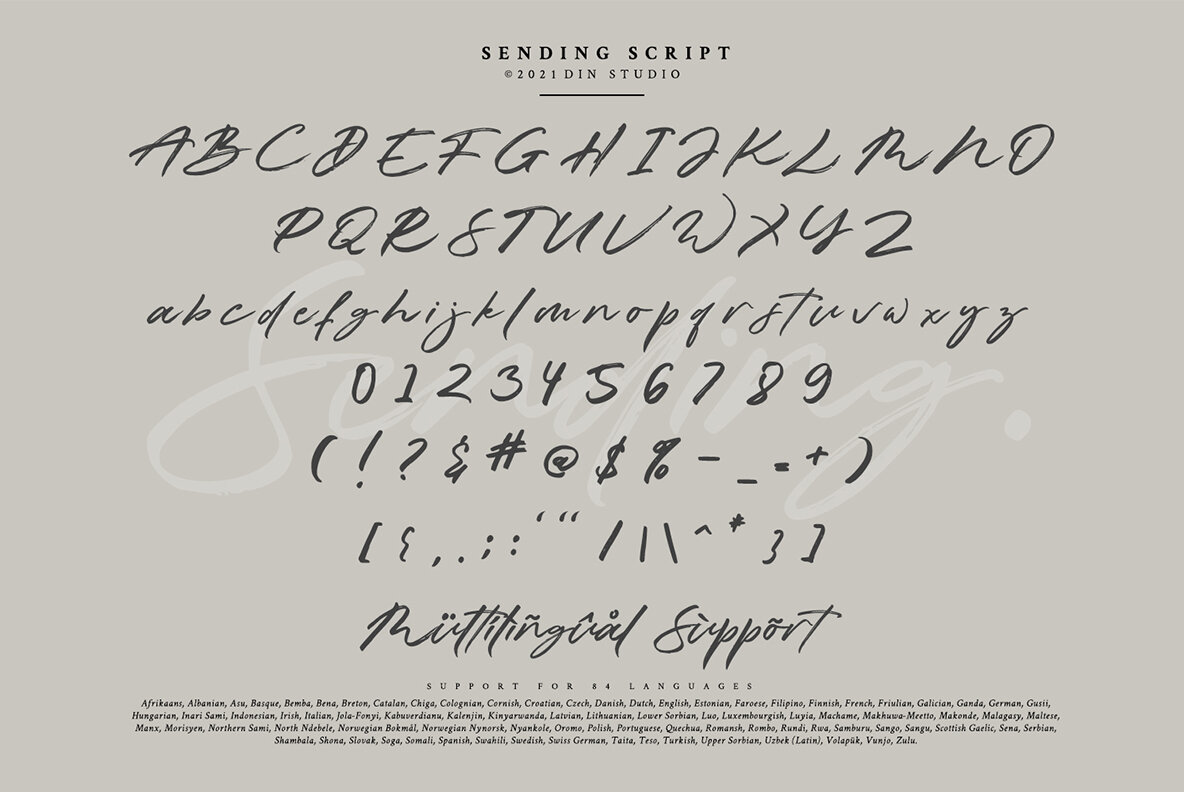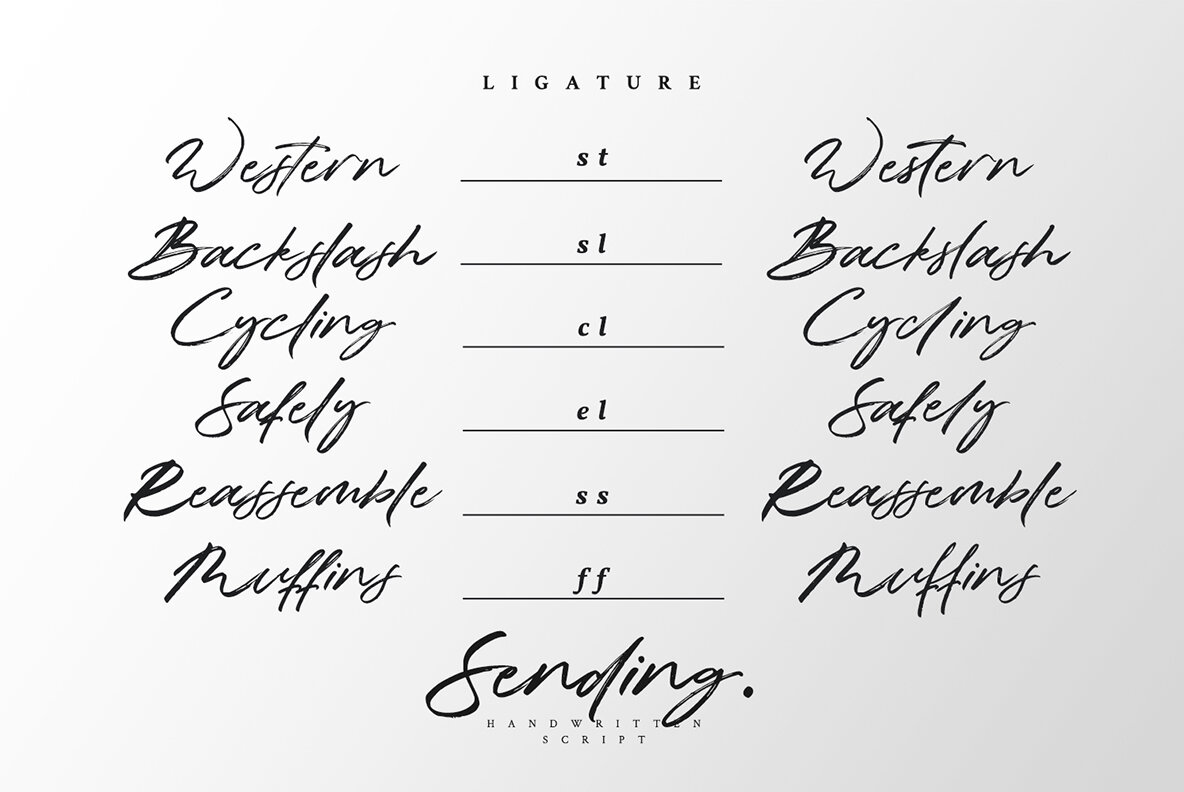
Sending Font
Sending
Unveil a new level of sophistication in your branding with Sending, a unique brush font that gracefully balances simplicity and elegance. Its refined curves and passionate strokes make it an excellent choice for enhancing your visual presentations, ensuring a lasting impression on clients and audiences alike. Whether for logos, business cards, or invitations, Sending promises to add a touch of finesse to your projects. Designed with a global approach, Sending includes multilingual options, making it applicable for diverse audiences across the world. Its versatility extends to various applications, from digital to print, enhancing every element from website headers to social media branding.Sending: Simple Yet Elegant Brush Font